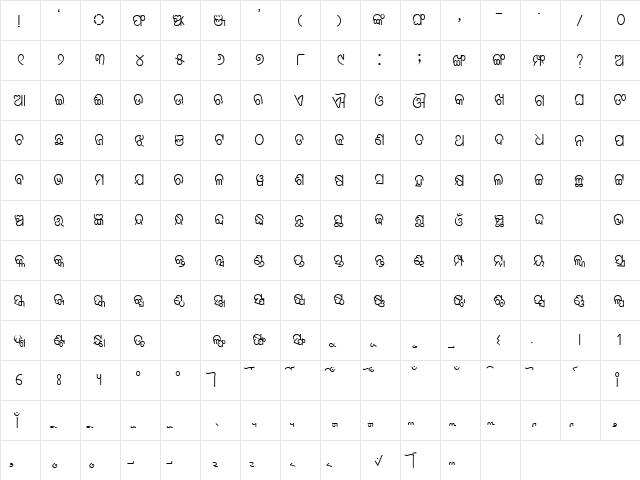
OR-TTSarala Normal
Design Context for OR-TTSarala Typeface
OR-TTSarala offers clean, dependable letterforms without strong stylistic allegiance, making it a practical choice for designers who need flexibility.